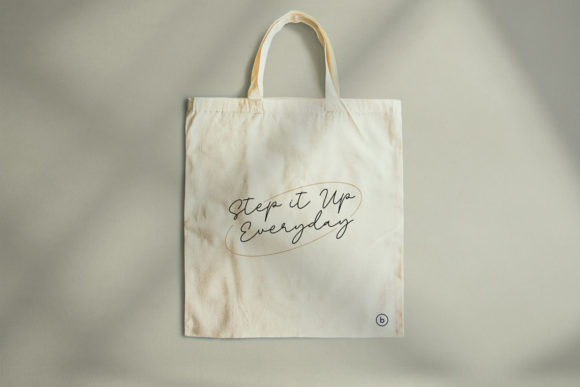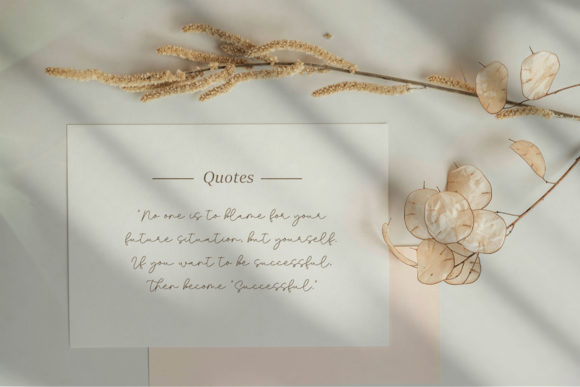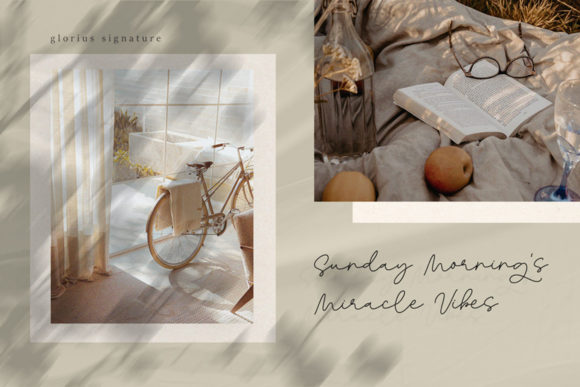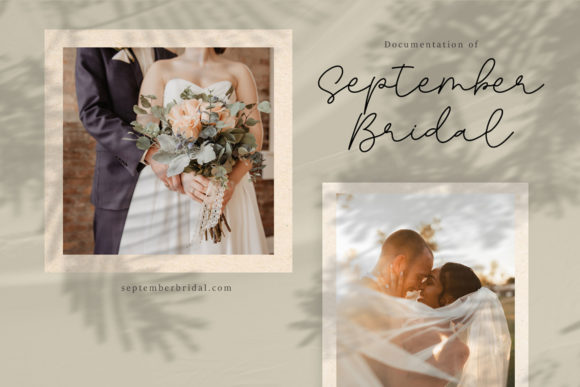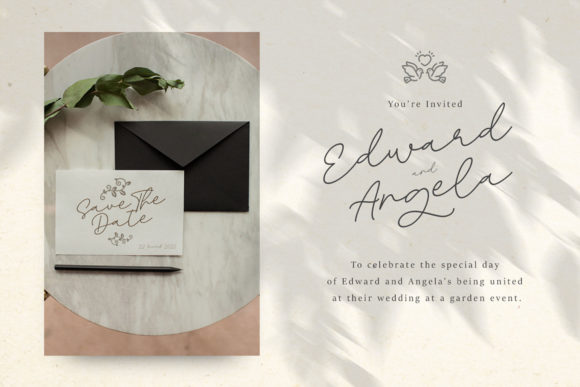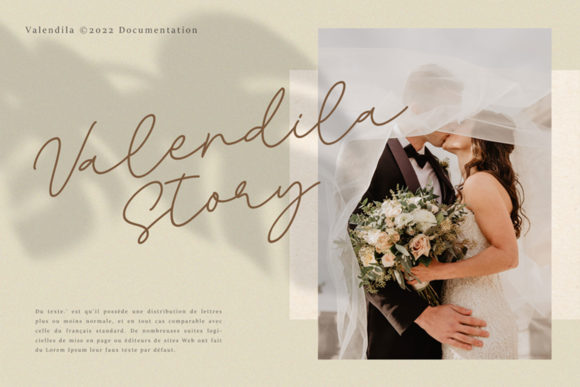
Introducing Glorius Font: Elevate Your Designs with Elegance and Sophistication
In the world of typography, fonts play a crucial role in conveying the tone and aesthetic of a design. For designers and crafters seeking to add a touch of elegance and sophistication to their projects, Glorius Font is an exceptional choice. This fashionable, signature-style script boasts unique curves and an elegant inky flow, making it perfect for those who aim to create stunning and memorable designs.
The Essence of Glorius Font
Glorius Font is characterized by its elegant, classy, and modern look. Its distinctive inky flow gives it a unique personality, setting it apart from more traditional fonts. This sophisticated script is designed to bring a sense of luxury and refinement to any project, whether it’s a branding campaign, a wedding invitation, or a packaging design.
Key Features of Glorius Font
- Unique Curves: Glorius Font features intricate, flowing curves that give it a dynamic and artistic feel.
- Elegant Inky Flow: The font’s inky flow adds a touch of organic elegance, making it perfect for designs that require a personal and sophisticated touch.
- Modern Look: Despite its classic roots, Glorius Font has a distinctly modern edge, making it suitable for a wide range of design applications.
- Signature-Style Script: This font is designed to mimic the fluidity and personality of a signature, adding a personal touch to any design.
Applications of Glorius Font
The versatility of Glorius Font makes it an excellent choice for various design projects. Here are some of the ways you can use this elegant font:
- Branding and Logos: Use Glorius Font to create a memorable and sophisticated brand identity.
- Wedding and Event Invitations: Add a touch of elegance to your wedding or event invitations with this beautiful script font.
- Packaging Design: Elevate your product packaging with a font that exudes luxury and refinement.
- Stationery and Letterheads: Give your stationery and letterheads a professional and classy look with Glorius Font.
- Digital and Print Media: Whether you’re designing for digital platforms or print, Glorius Font will ensure your text looks stunning and sophisticated.
Tips for Using Glorius Font Effectively
To make the most of Glorius Font, consider the following tips:
- Pair with Simple Fonts: For optimal readability, pair Glorius Font with simpler fonts for body text.
- Adjust Letter Spacing: Experiment with letter spacing to ensure your text looks balanced and elegant.
- Use for Headlines and Titles: Glorius Font is perfect for headlines and titles, where its unique curves and inky flow can shine.
- Experiment with Colors: Don’t be afraid to experiment with different colors to find the perfect match for your design.
Glorius Font is a powerful tool for designers and crafters looking to add a touch of elegance and sophistication to their projects. Its unique curves, elegant inky flow, and modern look make it an exceptional choice for a wide range of design applications. By incorporating Glorius Font into your designs, you’ll be able to create stunning and memorable pieces that stand out from the crowd.